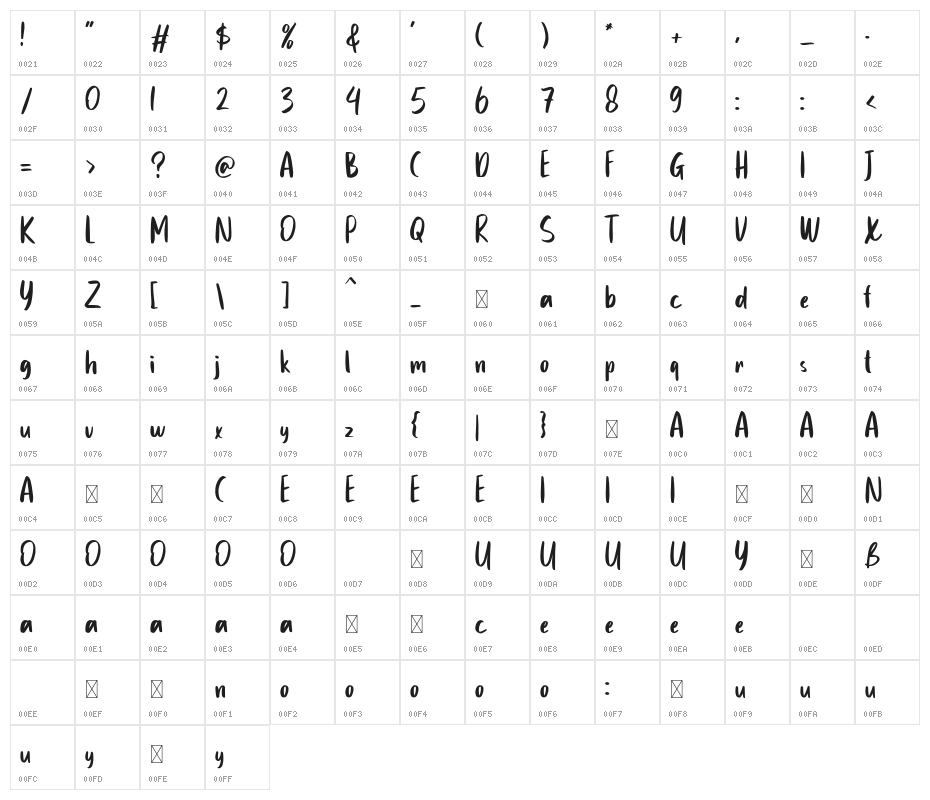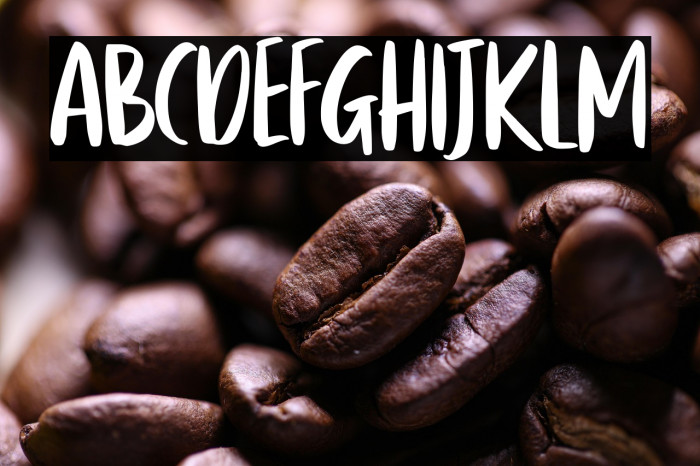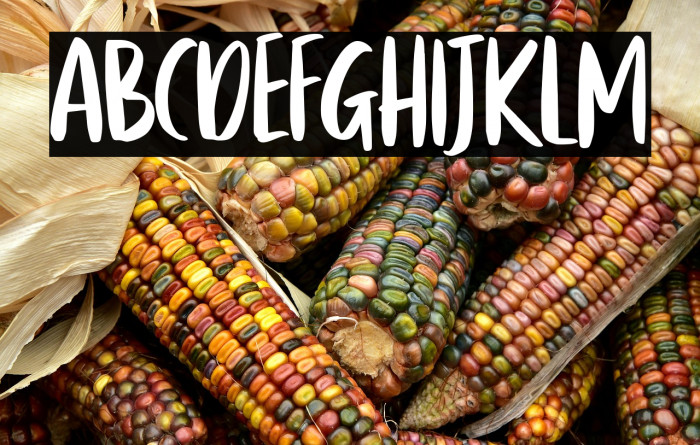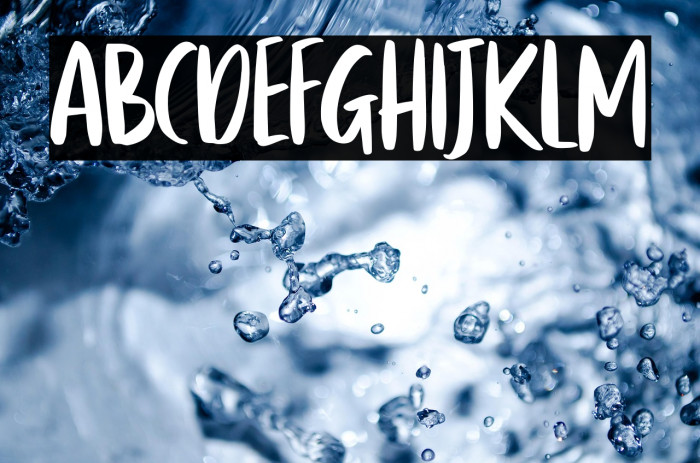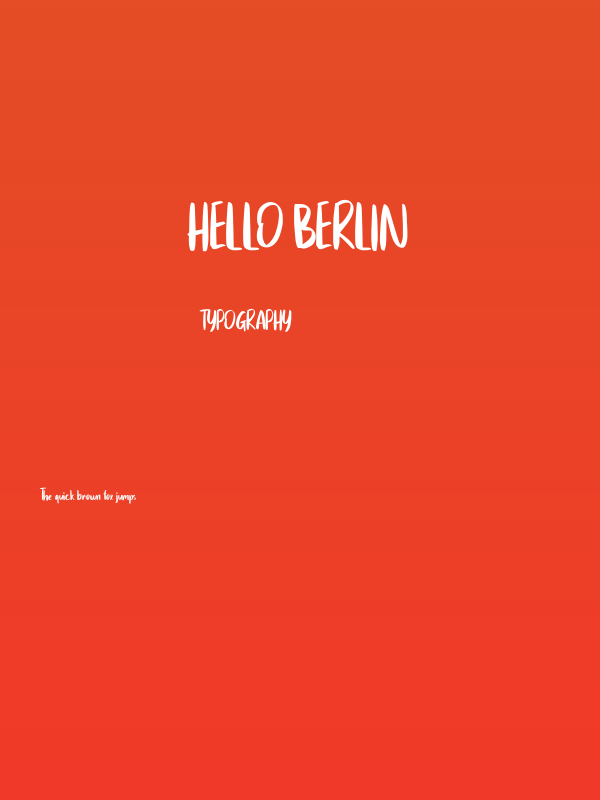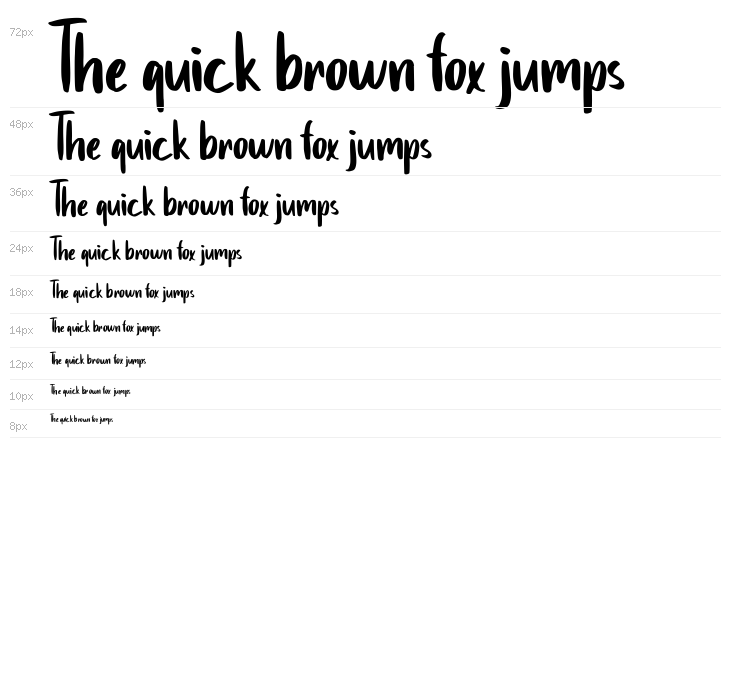
hello berlin Font
hello berlin Description
This font features a playful and casual handwritten style, characterized by its bold and dynamic strokes. The letters exhibit a slight slant, adding to the informal and energetic feel. The uppercase and lowercase letters are well-balanced, with a consistent flow that enhances readability. The numbers and special characters maintain the same lively aesthetic, making the font versatile for various creative applications. Its distinct personality makes it suitable for projects that require a touch of whimsy and fun.
| Proposed Projects | Ideal for greeting cards, playful branding, children's books, and social media graphics. |